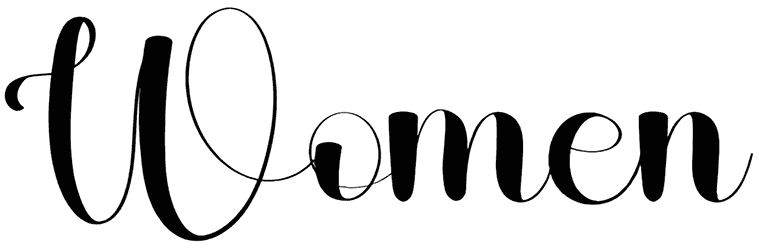
Kalingtone Brilliant Font
Choosing one font for your content between all of these options isn’t an easy task, but if you know the tone of your content, it can be easier; for example, for personal and intimate content Kalingtone Brilliant would be great.
This cursive font, with its curves and waves, gives your typography an organic element that is so powerful. As a collection, there isn’t a better font to offer you such a collection of all the characters in this quality. Enjoy.